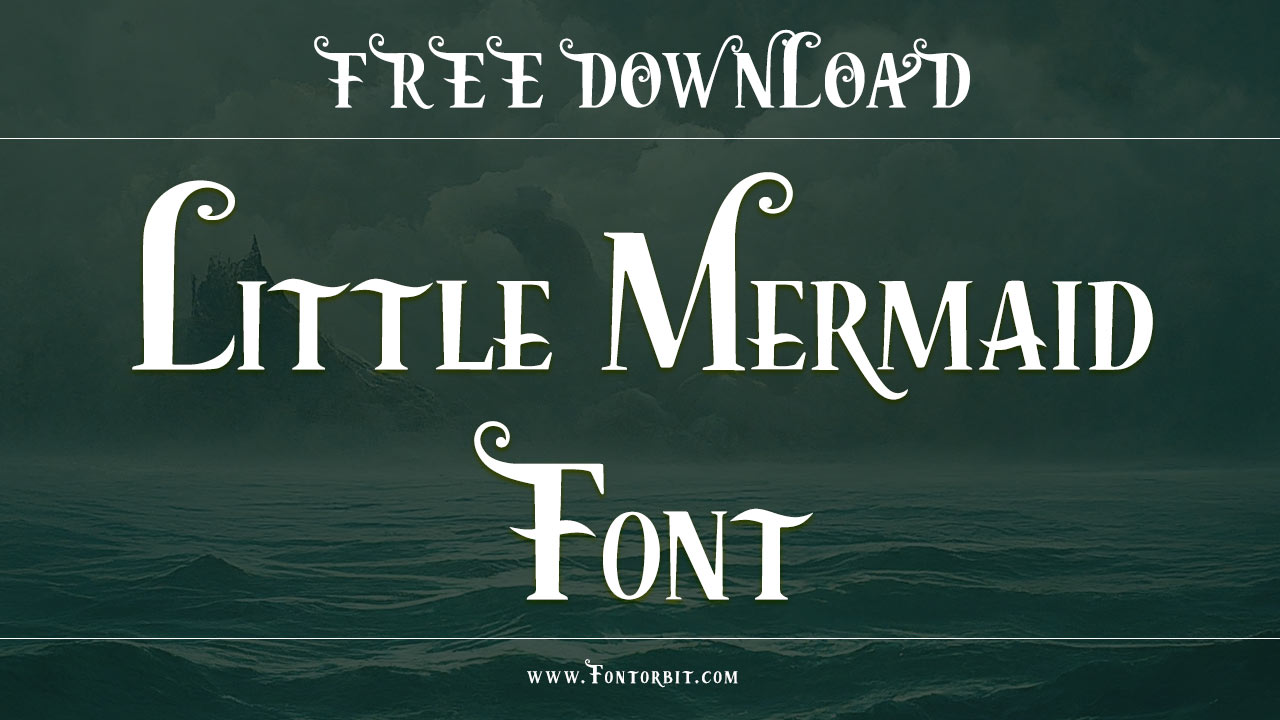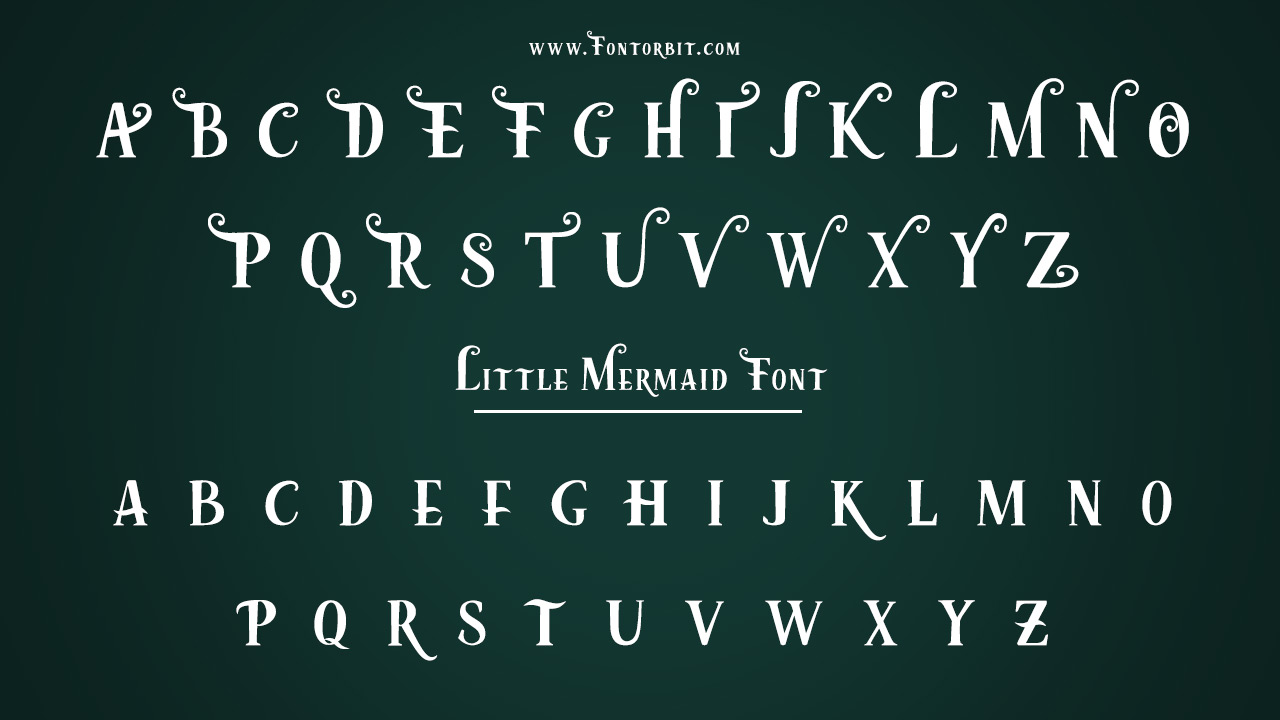
Little Mermaid Font is a whimsical and elegant typeface inspired by the iconic title lettering of Disney’s 1989 animated movie The Little Mermaid. It’s designed by Kustren. This font captures the enchanting essence of the film, bringing to life the story of Ariel, a beautiful mermaid princess who dreams of becoming human and finds love with a human prince. Designed to reflect the underwater fantasy world, this font is perfect for fans, designers, and creative enthusiasts looking to add a magical touch to their projects.
Type Of The Little Mermaid Font (Font Family)
The Little Mermaid Font is a Fancy-style typeface that draws on the playful and fluid elements of underwater themes. It features unique curves and calligraphic details, ideal for creating designs that evoke fantasy, romance, and adventure. This font is compatible with various platforms and devices, available in multiple formats such as OTF and TTF.
While only one style of this font is widely recognized, its flexibility makes it suitable for numerous creative applications.
The Little Mermaid Font is a versatile typeface that works beautifully in a range of design scenarios, especially where a magical or aquatic theme is desired. Popular uses include:
- Logo Design
- Movie Posters
- Website Headers
- Mermaid-Themed Projects
- Calligraphy & Script Fonts
- Stationery & Cards
Whether designing a mermaid-themed birthday card or branding for a fantasy-inspired product, this font delivers a captivating visual experience.
Little Mermaid Font Found In Use
The Little Mermaid Font is widely recognized in fan art, logo designs, and branding projects inspired by the The Little Mermaid movie. Its elegant and curvy style resonates with themes of the sea, sacrifice, and young love, making it a popular choice among creators.
Examples include:
- Movie Posters
- Mermaid-Themed Party Decor
- Fantasy Websites
- Anime and Cartoon Fonts
The Little Mermaid Font is an enchanting typeface that beautifully captures the magic and charm of the beloved Disney movie. Perfect for projects like logos, invitations, and posters, this font is ideal for those who wish to bring a touch of fantasy to their designs. Its whimsical style and versatile features make it a valuable tool for anyone working with themes of love, sacrifice, and underwater adventures.